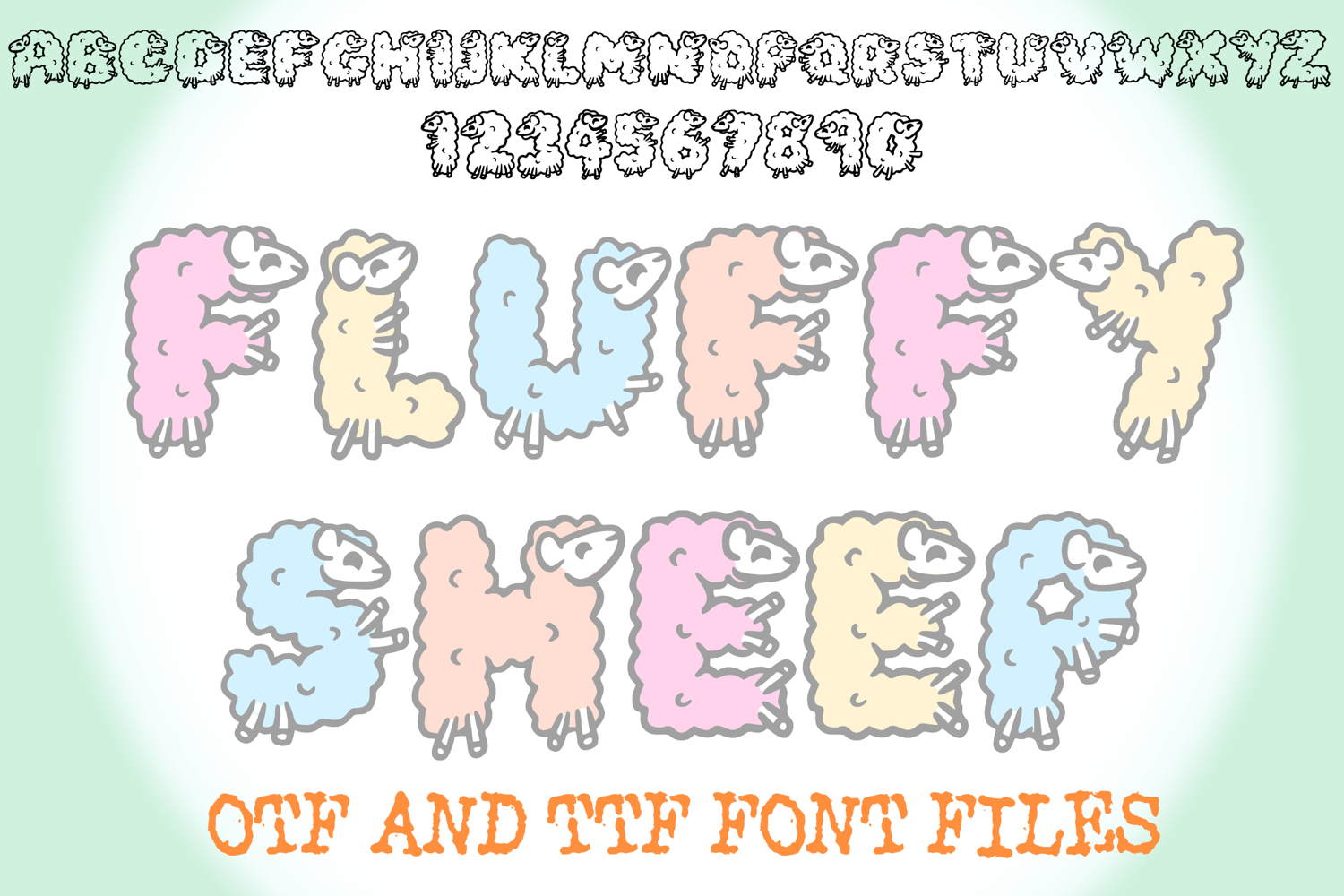
Fluffy Sheep Lettering ABC Text Font Alphabet OTF Type Illustration
A fun cartoon style font where you can create your own words and colour them to your vision!